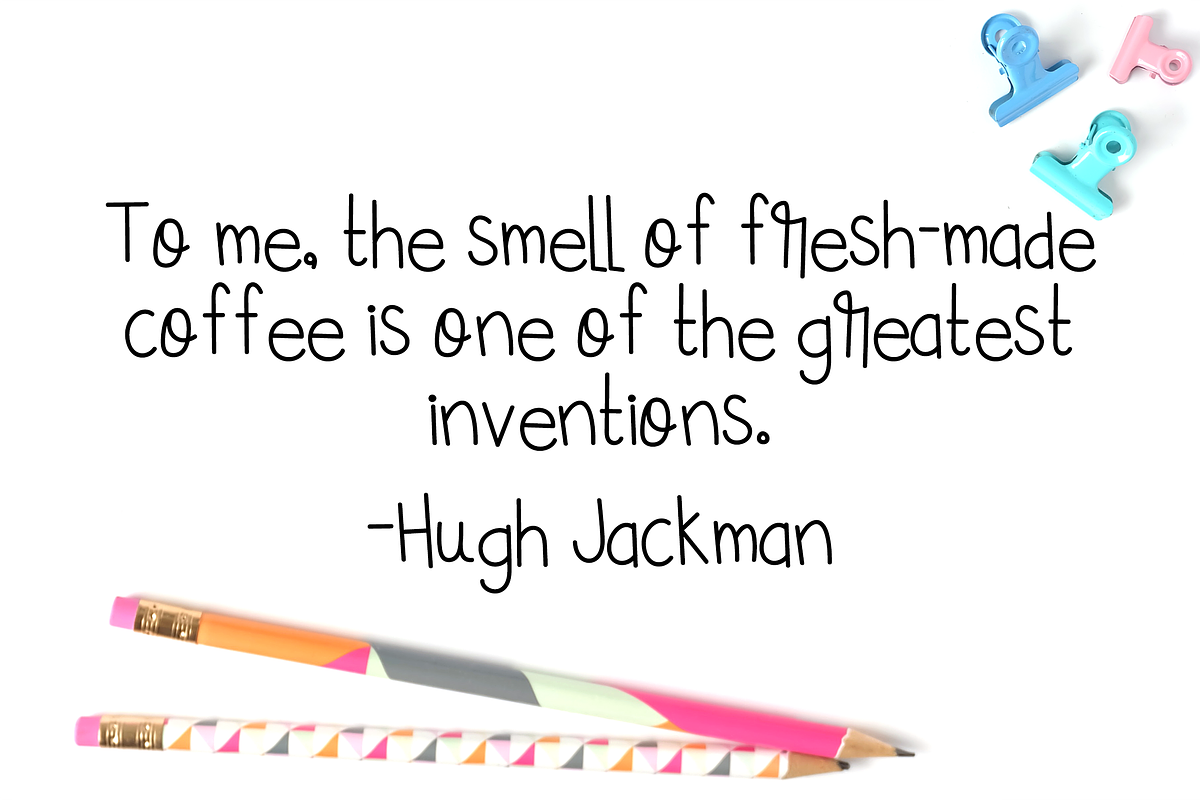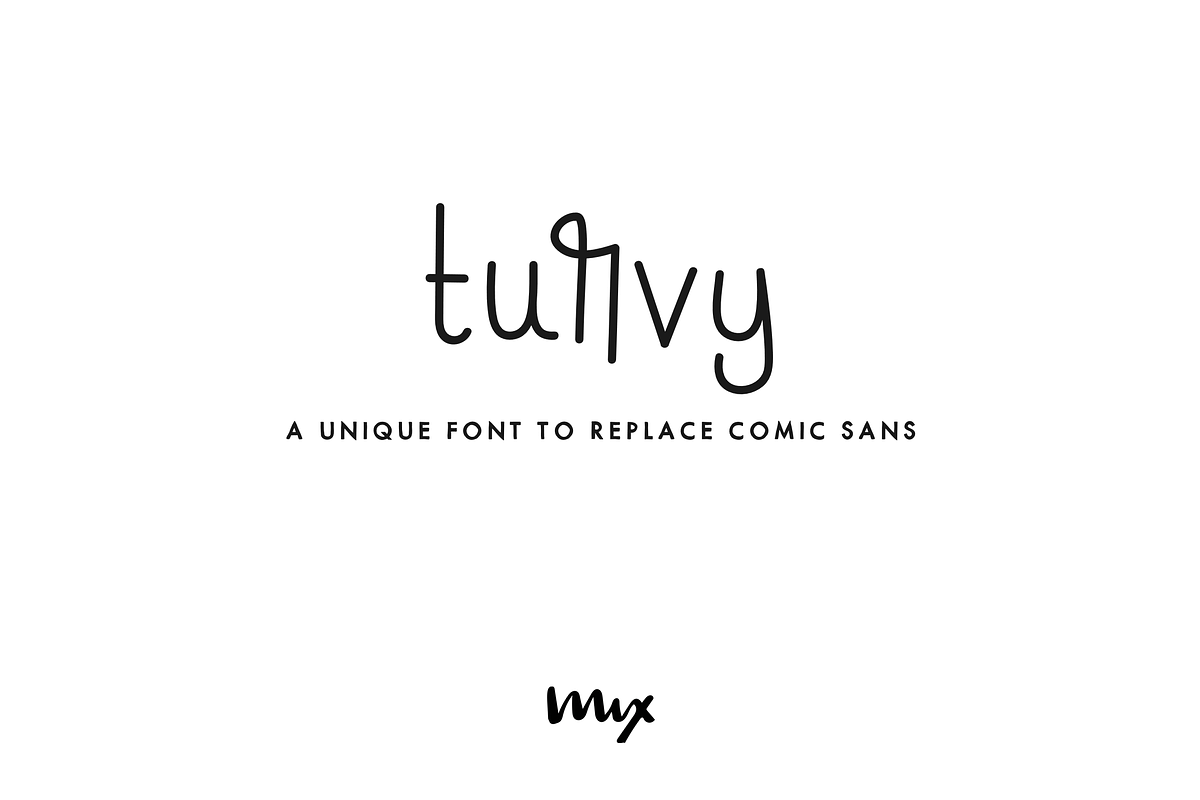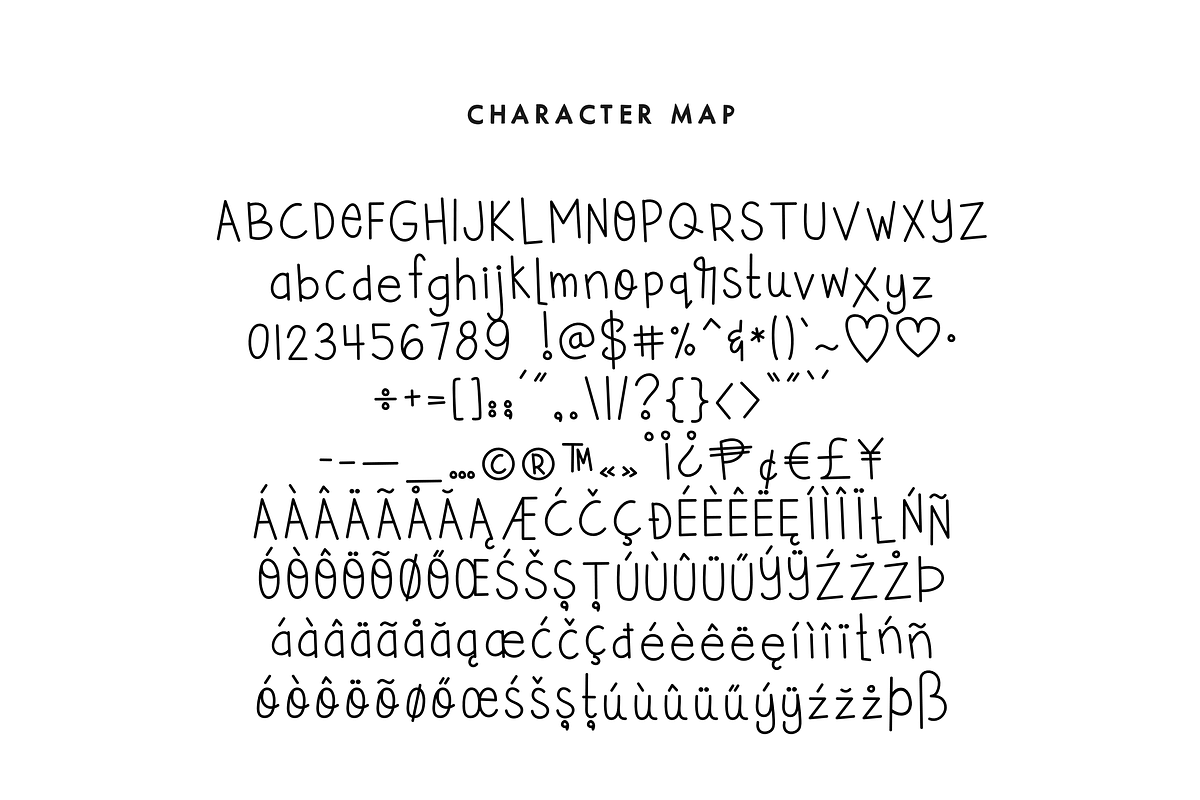
Turvy — A Comic Sans Replacement
Turvy — A Comic Sans Replacement by Mix Fonts is a font selected for branding, posters, packaging, typography.
Why Turvy — A Comic Sans Replacement is worth a look
Turvy — A Comic Sans Replacement by Mix Fonts fits naturally into Branding, posters, packaging, typography.